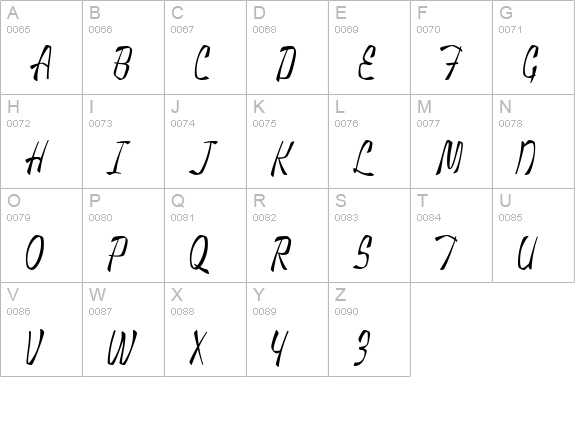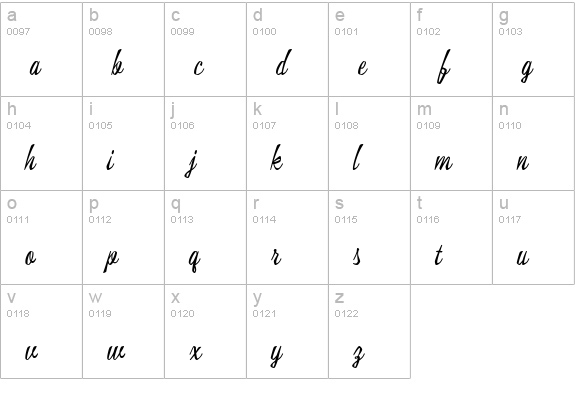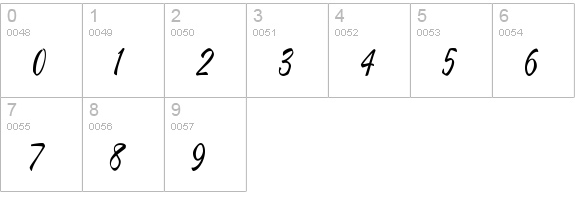
KonTikiJFLounge Font Details
KonTikiJFLounge is a stylish and modern font that exudes elegance and sophistication. With its sleek lines and contemporary design, this font is perfect for adding a touch of class to any project. The clean and clear lettering makes it easy to read, while the unique flair of the font adds a creative edge. What sets KonTikiJFLounge apart is that it is not only visually stunning, but also completely free to download. You can access this amazing font at FontsMarket.com without any cost, making it a great choice for designers and creatives looking for a high-quality font without breaking the bank. Whether you're designing a poster, creating a logo, or working on any other project that requires a touch of sophistication, KonTikiJFLounge is the perfect choice. Download it now and elevate your designs with this stunning and free font.